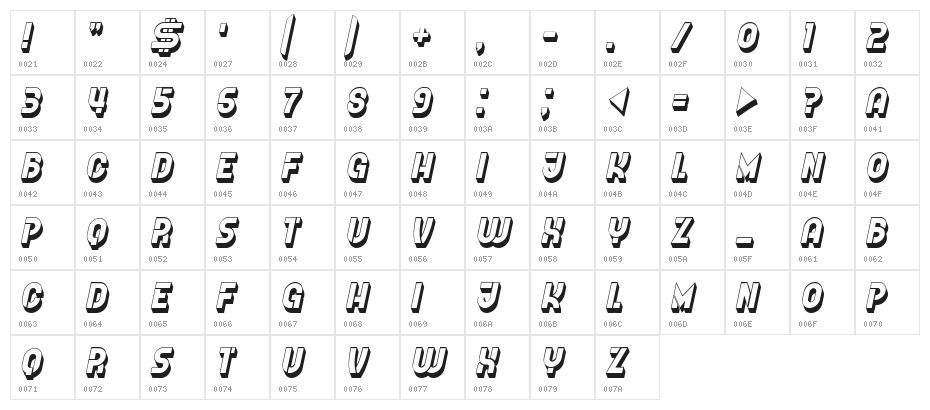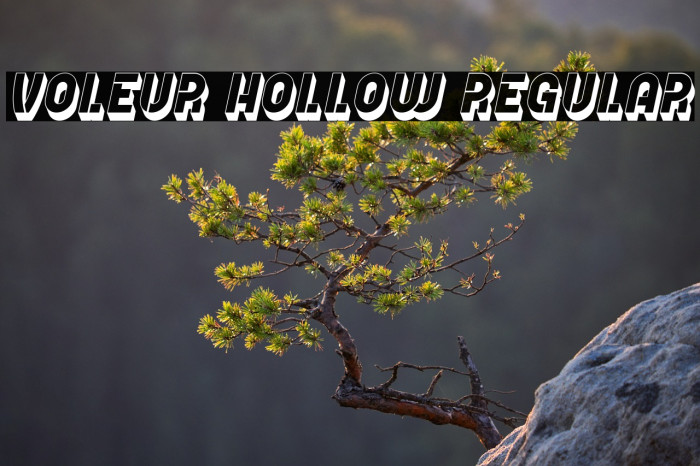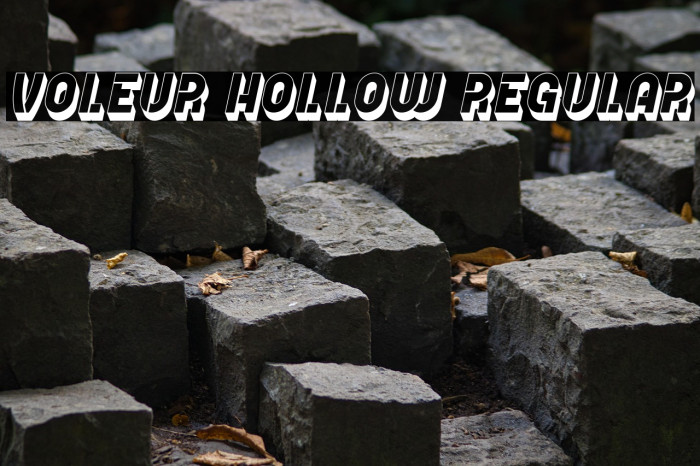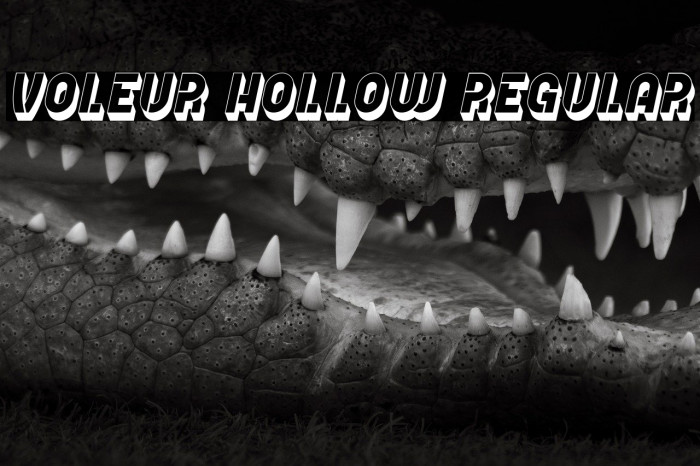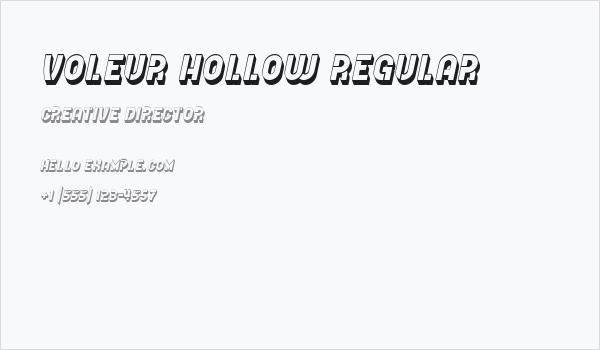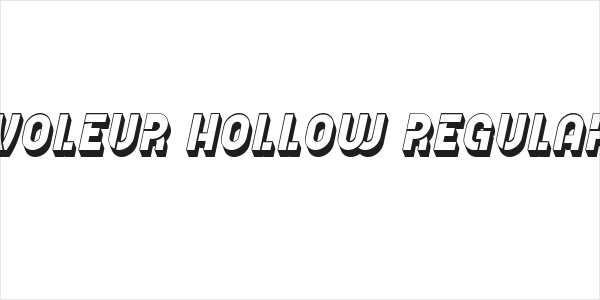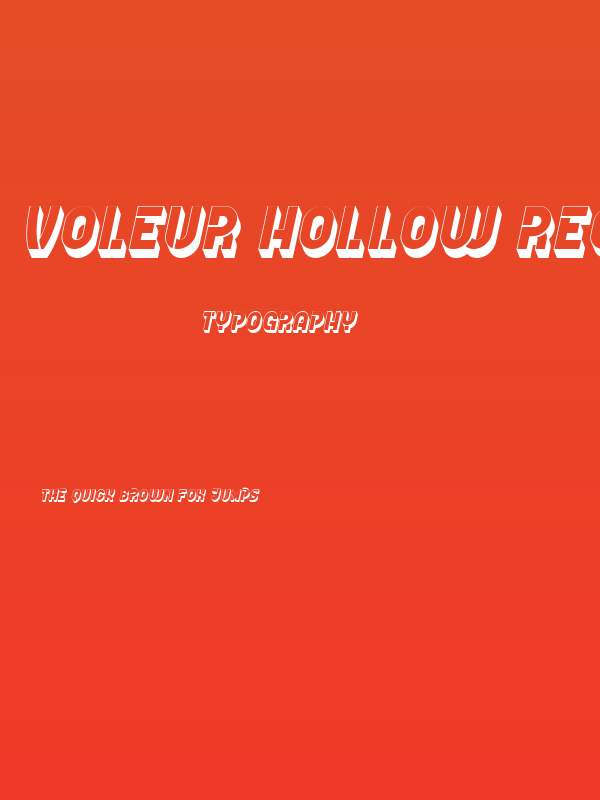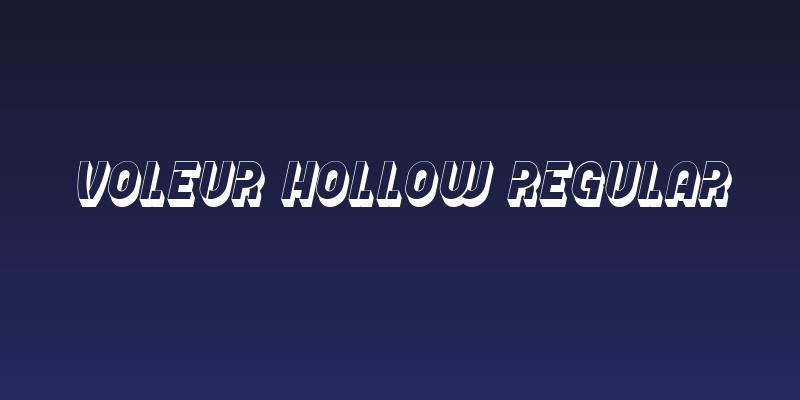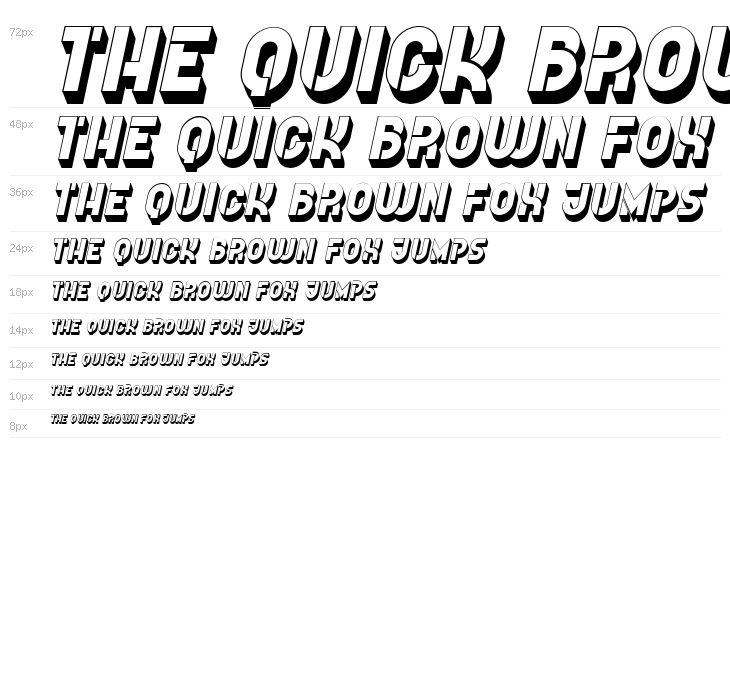
Voleur Hollow Regular Font
Voleur Hollow Regular Description
This font features a bold, three-dimensional appearance with a hollow center, giving it a striking and dynamic look. The characters are uppercase and have a strong, geometric structure with sharp angles and clean lines. The shadow effect adds depth, making the letters appear as if they are popping off the page. This style is eye-catching and ideal for making a statement in any design. The font maintains consistent proportions across all characters, ensuring a uniform and balanced appearance. Its unique design makes it suitable for projects that require a bold and modern aesthetic.
| Proposed Projects | Ideal for posters, headlines, logos, and any design requiring a bold statement. |